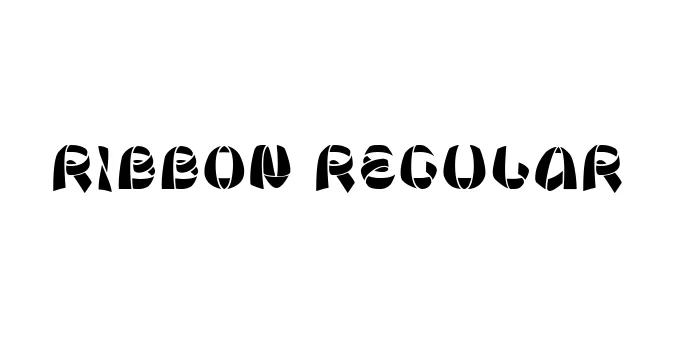
Ribbon Regular
Designed by Dan Cassaro
| Font Name | Ribbon |
| Category | Display / Decorative |
| Designer | Dan Cassaro |
Ribbon Regular is a unique geometric display typeface designed by Dan Cassaro and originally released through the Lost Type Co-op. The font's architecture is inspired by the physical movement of folding and bending actual ribbons into letterforms, resulting in a tactile and structural aesthetic. Its design strikes a perfect balance between mid-century vintage appeal and modern geometric precision, making it a standout choice for designers seeking a custom-lettered look.
The typeface features a robust set of characters including uppercase letters, numbers, and essential punctuation. Because of its distinct ribbon-like construction, it is particularly effective at large sizes where the intricate folds and overlaps are clearly visible. It has since become a staple in the design community for projects ranging from high-end editorial layouts to independent brand identities that require a sense of craftsmanship and character.
Ribbon Regular Best Uses
Excellent for creating distinctive, fold-style brand identities.
Highly effective for large, high-impact headlines and event graphics.
Adds a premium, hand-crafted feel to boutique product labels.
Perfect for eye-catching banners and creative promotional content.